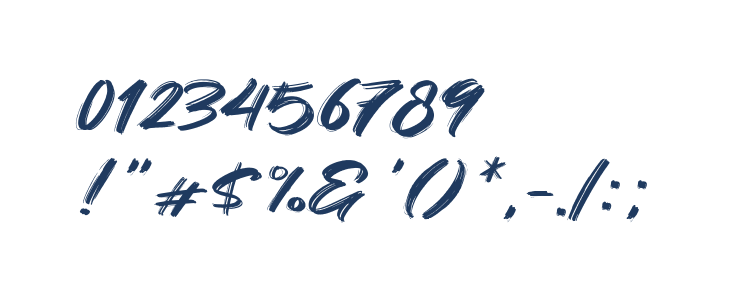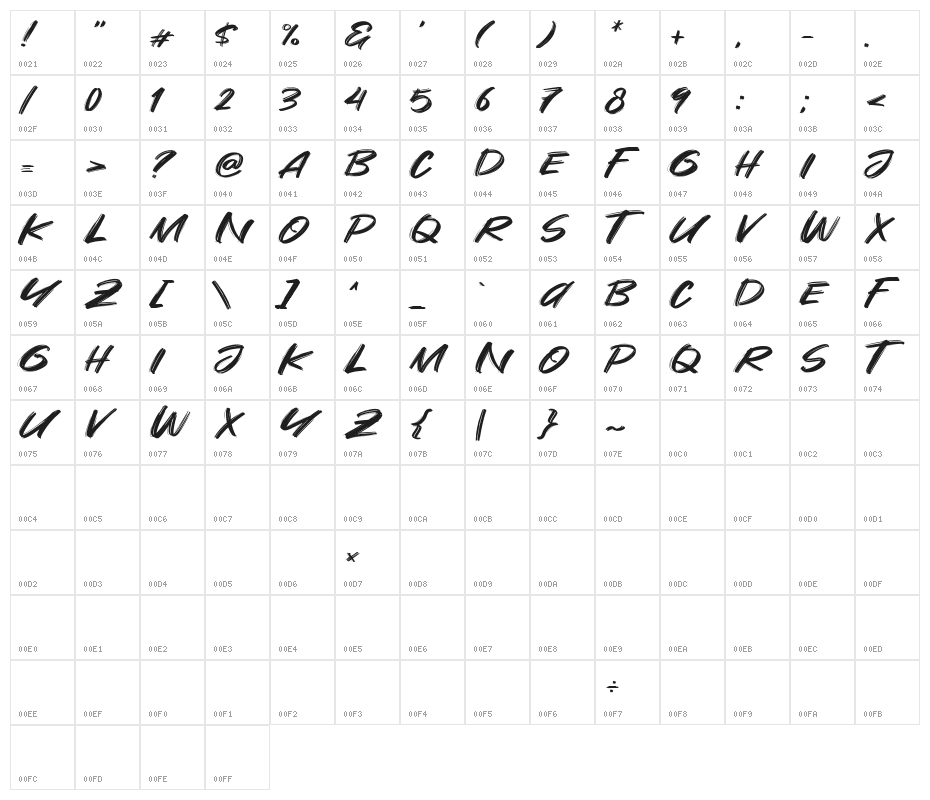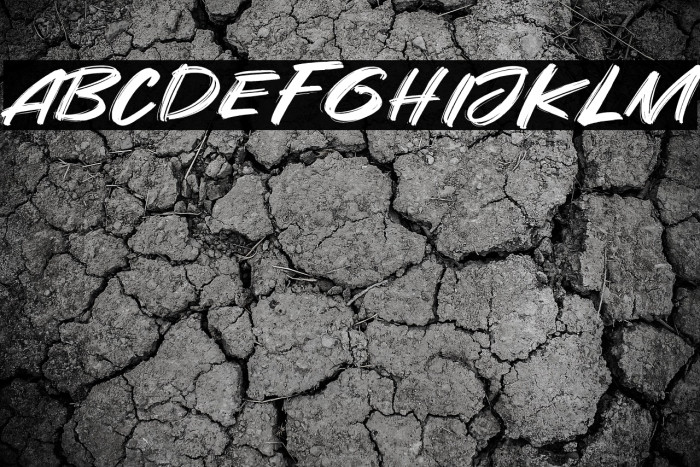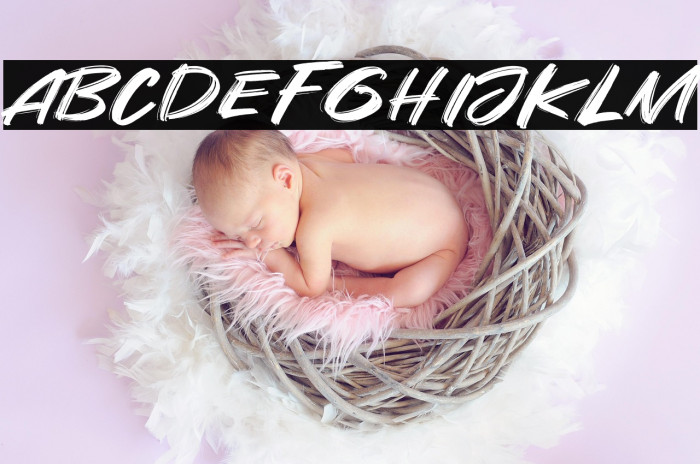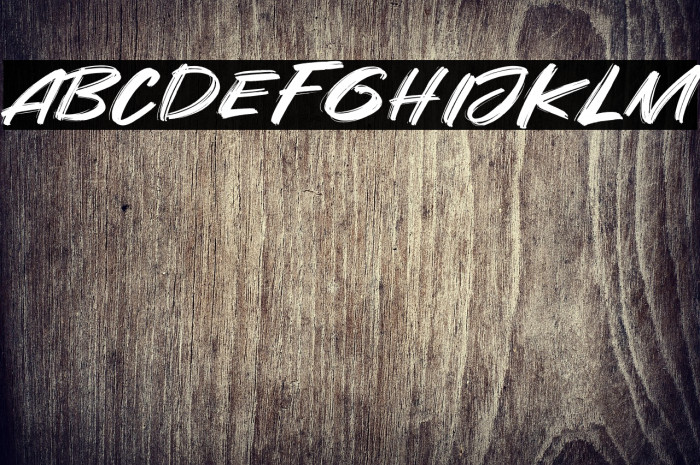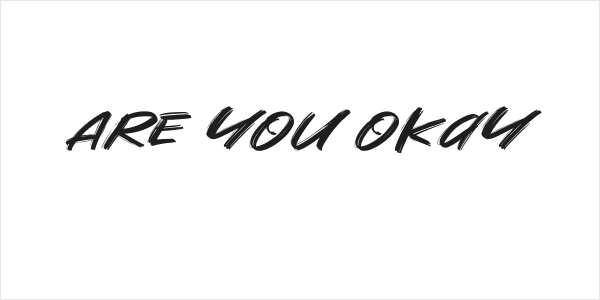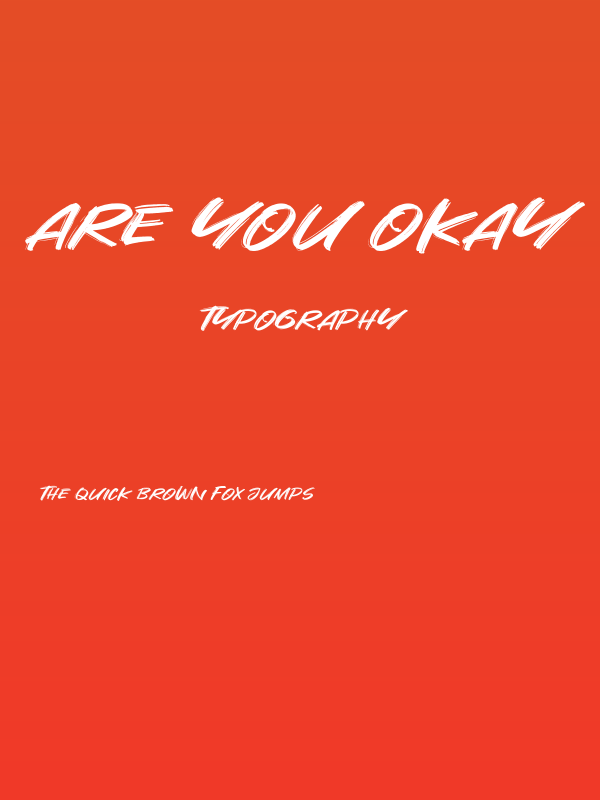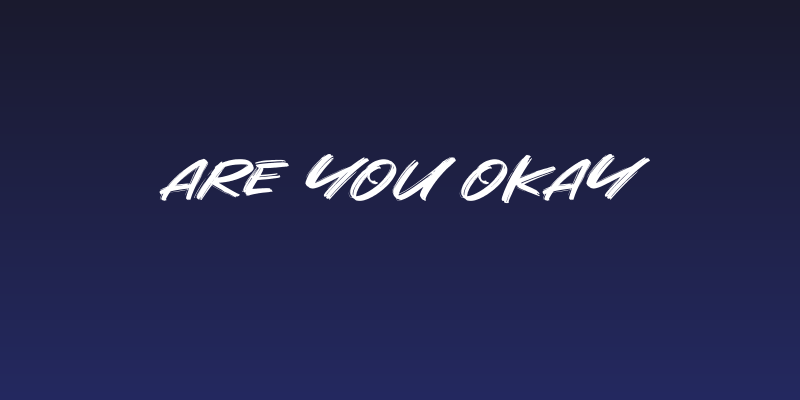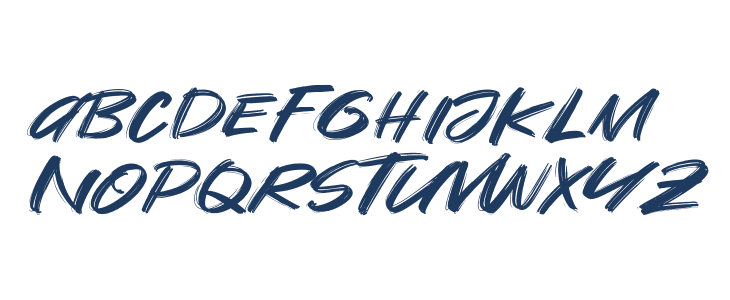
Are You Okay Font
Are You Okay Description
This font features a bold, brush script style with dynamic and energetic strokes. The characters exhibit a hand-painted appearance, giving a sense of movement and fluidity. The uppercase and lowercase letters maintain a consistent style, with slightly exaggerated curves and angles that enhance the font's expressive nature. The numbers and special characters are crafted with the same brush-like texture, ensuring uniformity across all glyphs. This font's artistic flair makes it suitable for creative and informal applications, where a touch of personality is desired.
| Proposed Projects | Ideal for branding, posters, invitations, and any project requiring a lively, artistic touch. |